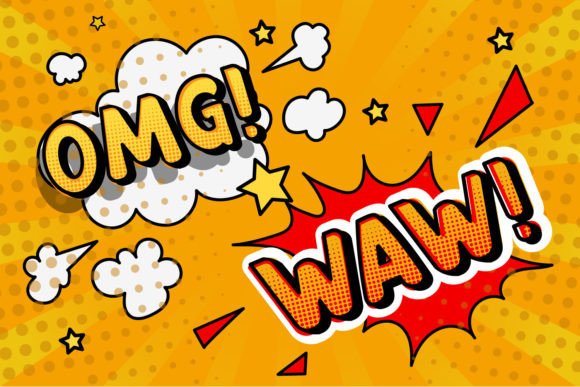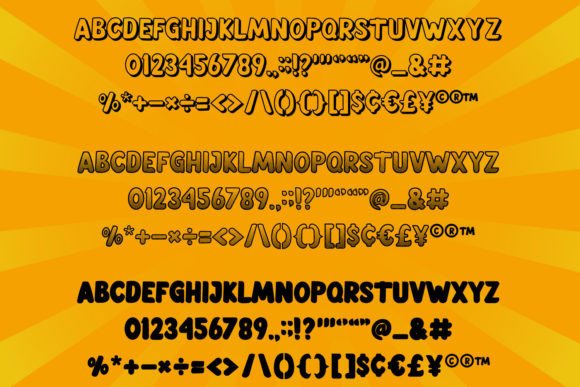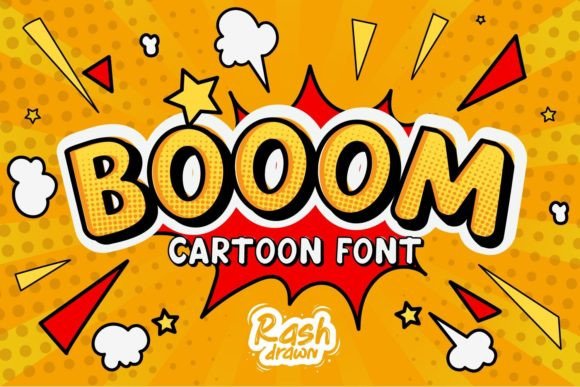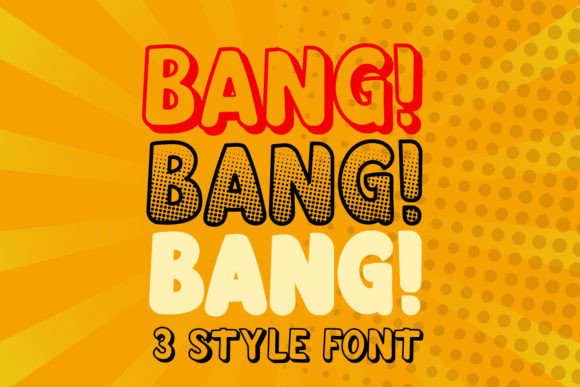
Booom Font: Bold Comic & Cartoon Display Font for Kids’ DIY Projects
About the Booom Font
Elevate your designs with Booom Font, a font that combines sophistication with readability. Booom. The best comic book font there is. The best cartoon font there is. The best superhero font there is! Perfect for that WOW! factors.
A bold and fun font with tons of impact! It is playful and strong. Perfect for kids and children’s items yet cool and unique for products with bags of character. Complete with uppercase, lowercase and special characters.
Booom excels in headlines, posters, and packaging where its bold, playful energy commands attention. It’s ideal for projects targeting younger audiences or brands with a vibrant, fun personality—think children’s books, toys, or playful apparel. However, its strong visual weight makes it unsuitable for body text or UI elements requiring high readability.
Pairing Booom with a clean sans-serif like Open Sans for body copy provides excellent contrast, balancing the font’s boisterous character with clear, legible text. Alternatively, a classic serif like Garamond can add a touch of sophistication, creating a dynamic tension between playful and refined.
Booom’s core personality is undeniably bold and fun, yet maintains a certain approachability. This makes it versatile for projects requiring a strong visual impact without sacrificing a friendly, approachable feel.